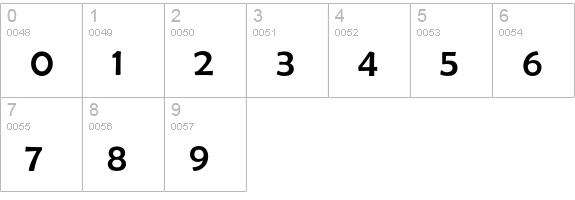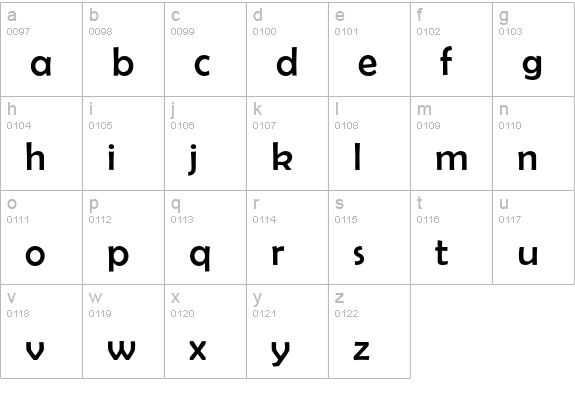
The Berlinsans-Roman font exudes elegance and sophistication with its sleek lines and modern design. Featuring a perfect balance between classic and contemporary elements, this versatile typeface is ideal for a wide range of projects, from branding to editorial design. Its clean and readable letterforms make it a great choice for both print and digital applications. What sets Berlinsans-Roman apart is not only its timeless appeal but also its accessibility. This high-quality font is available for free download at FontsMarket.com, allowing designers and creatives to easily incorporate it into their work without any hassle. With its seamless integration into various design projects, Berlinsans-Roman is sure to elevate your typography game and make a lasting impression on your audience.